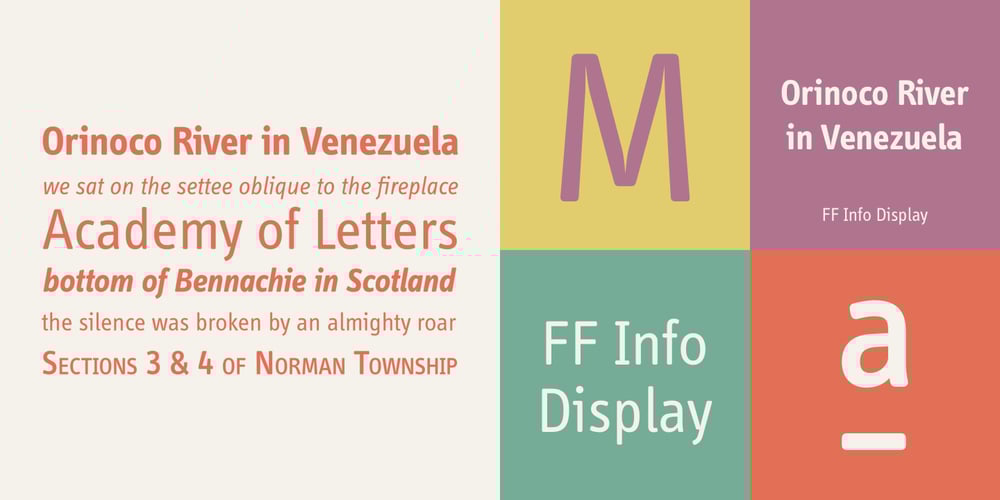
FF Info Display
FF Info Display font
FF Info Display Font Family was designed by Ole Schäfer, Erik Spiekermann and published by FontFont. FF Info Display contains 10 styles and family package options. German type designers Erik Spiekermann and Ole Schäfer, and German design agency MetaDesign created this sans FontFont between 1996 and 2000. The family has 18 weights, ranging from Regular to Bold (including italics) and is ideally suited for advertising and packaging, book text, editorial and publishing, logo, branding and creative industries, small text, wayfinding and signage as well as web and screen design. FF Info Display provides advanced typographical support with features such as ligatures, alternate characters, case-sensitive forms, fractions, super- and subscript characters, and stylistic alternates. It comes with proportional lining, proportional oldstyle, and tabular lining figures. In 1998, FF Info Display received the The Big Crit award. This FontFont is a member of the FF Info super family, which also includes FF Info Correspondence and FF Info Text.